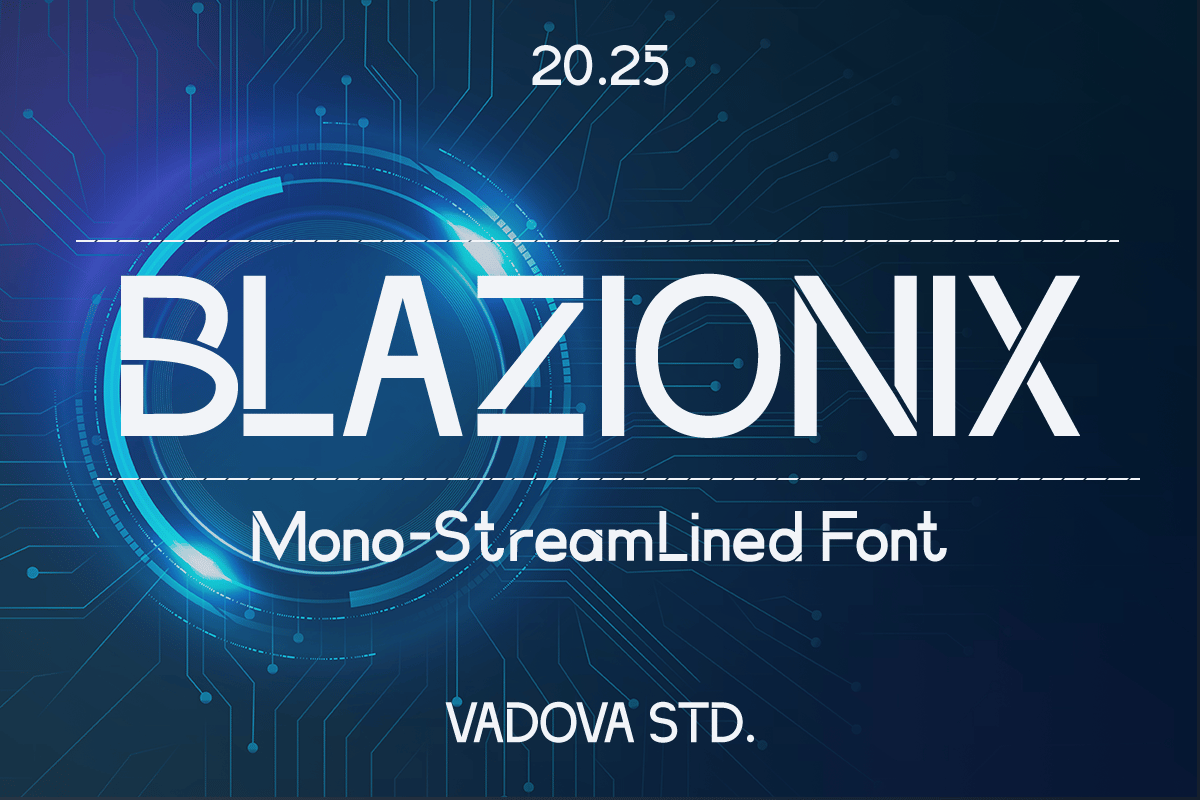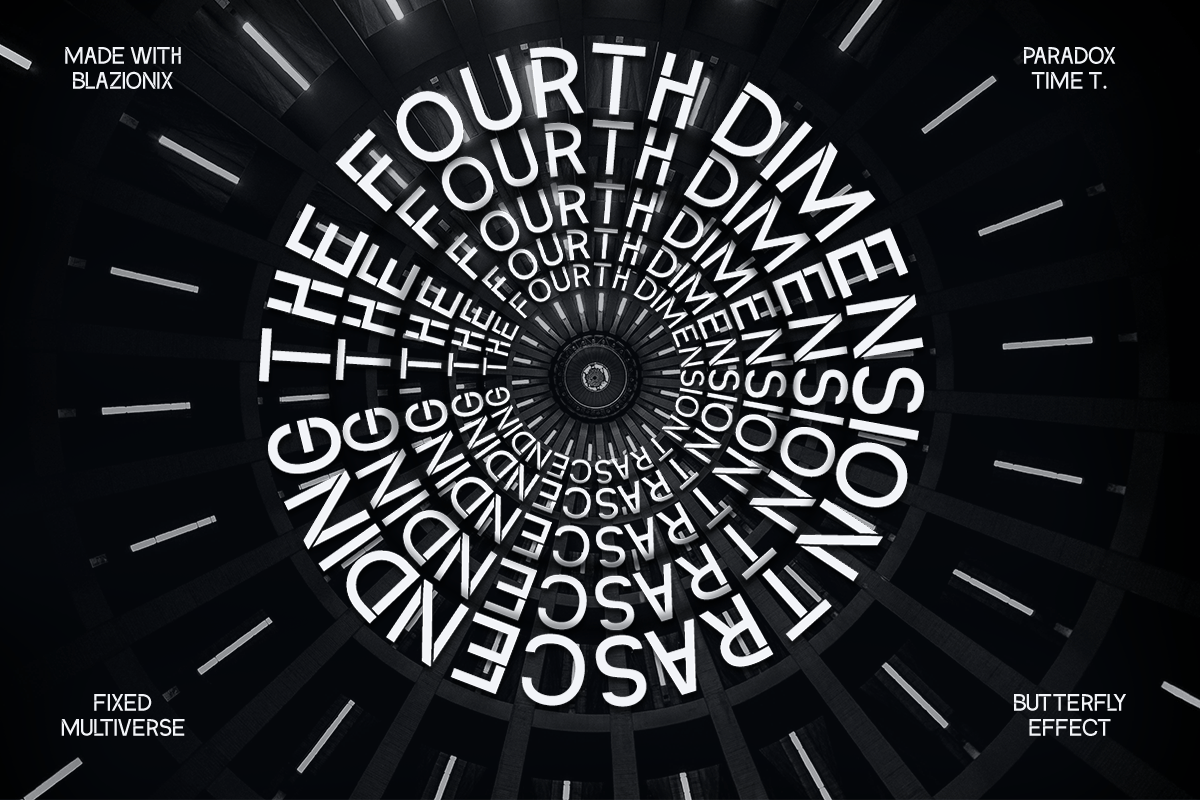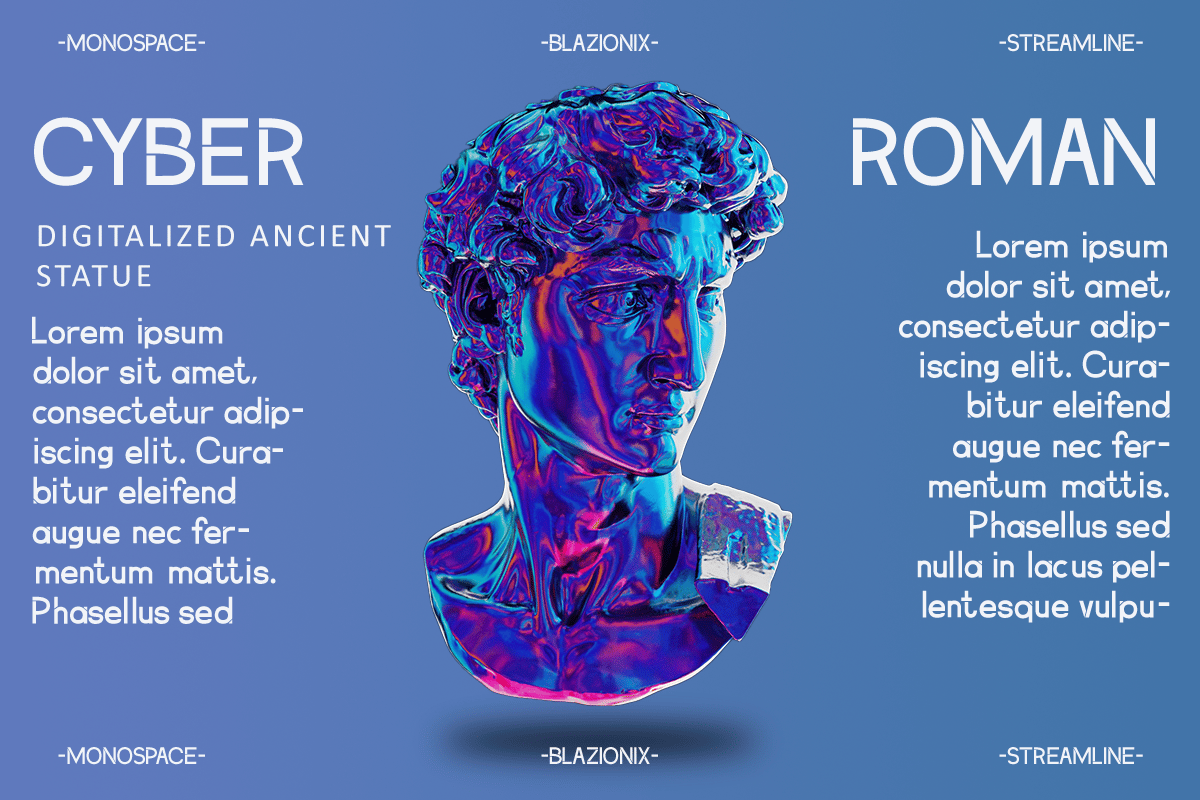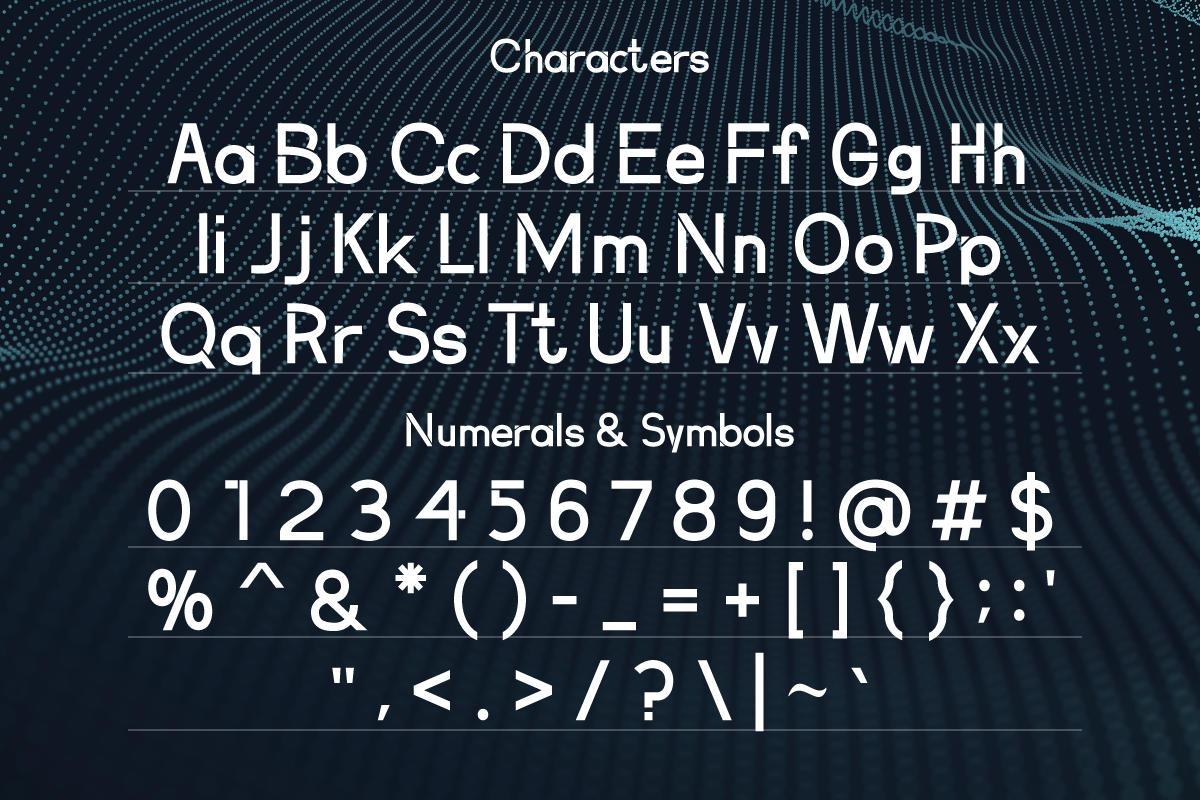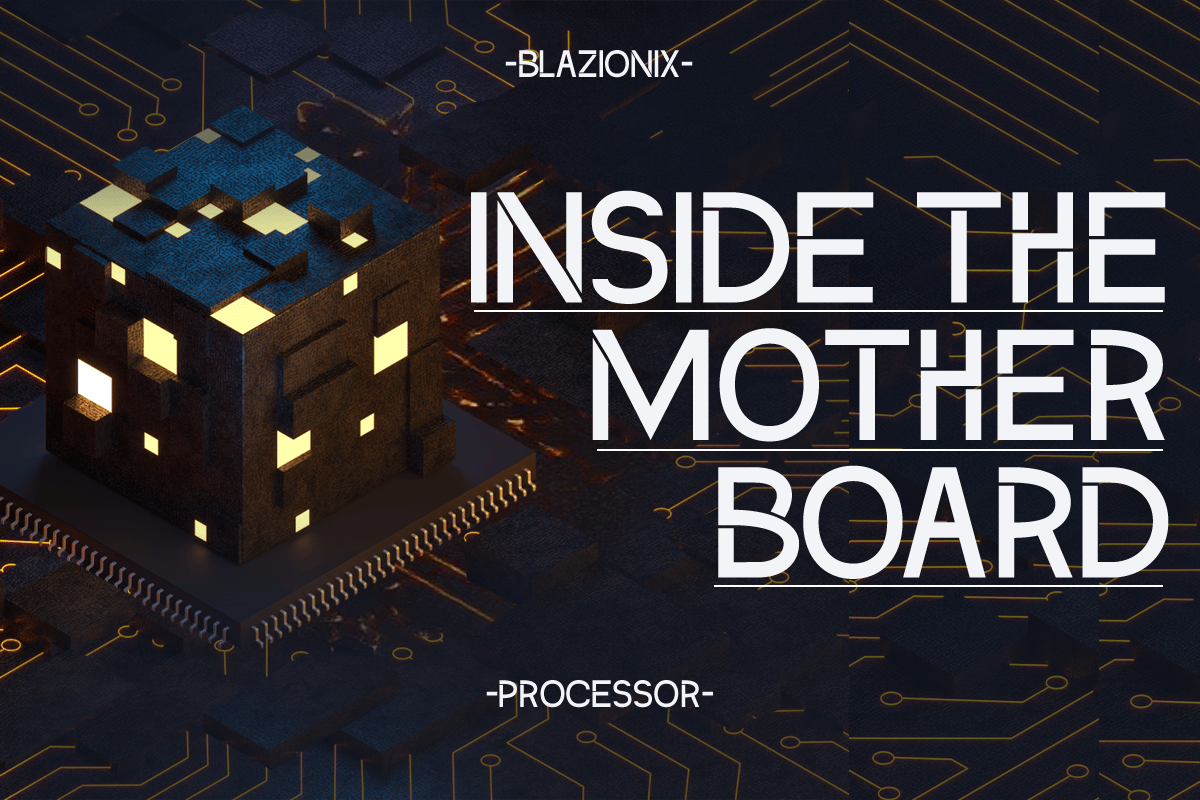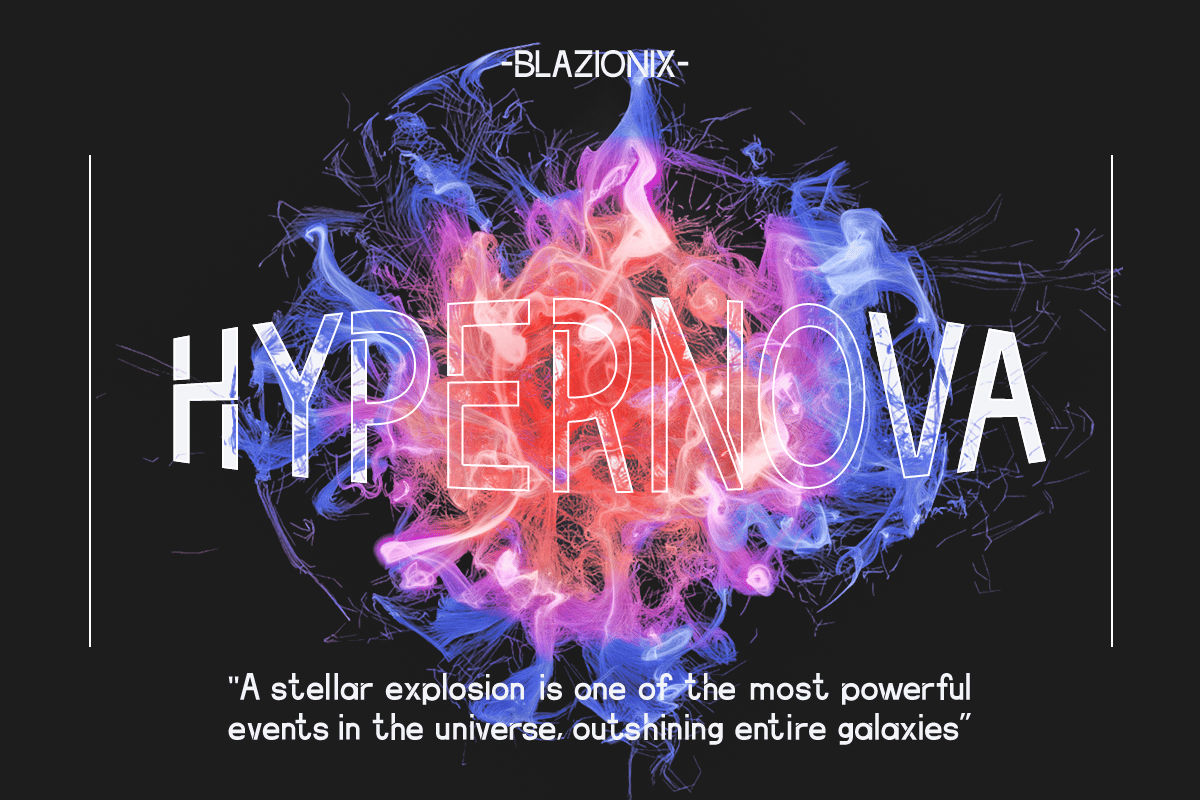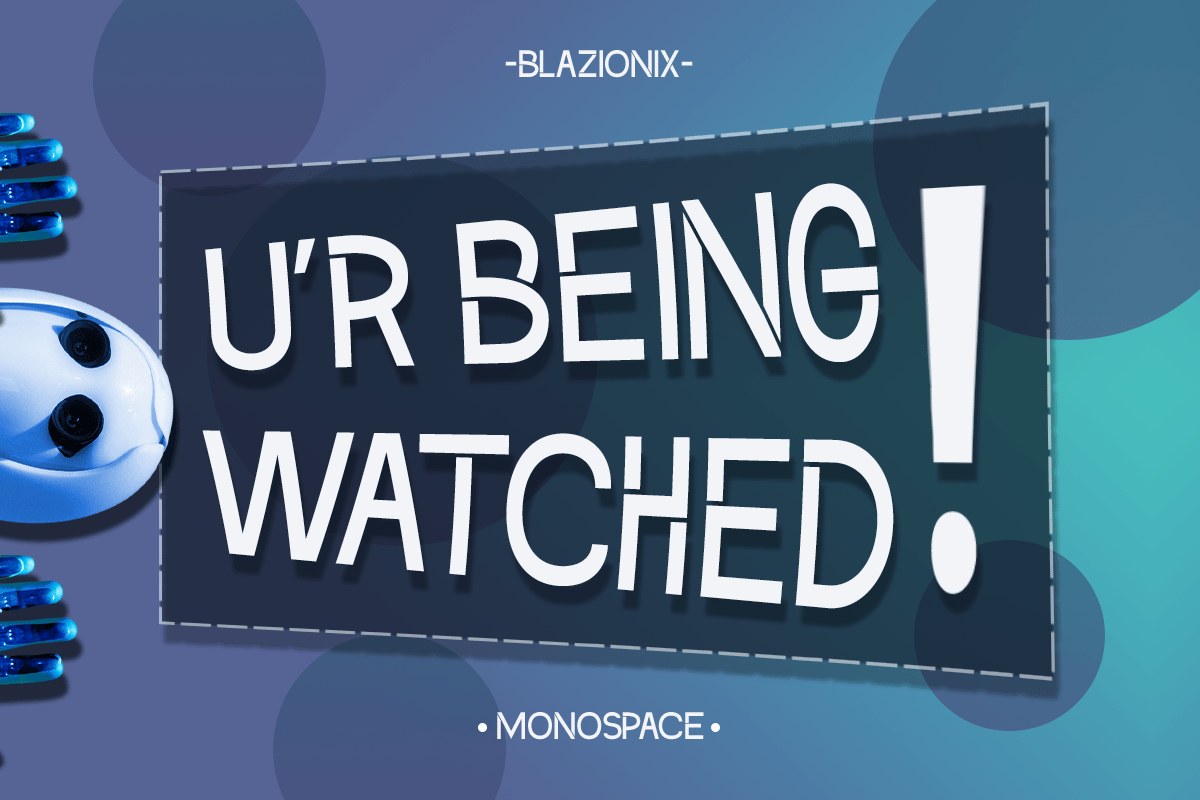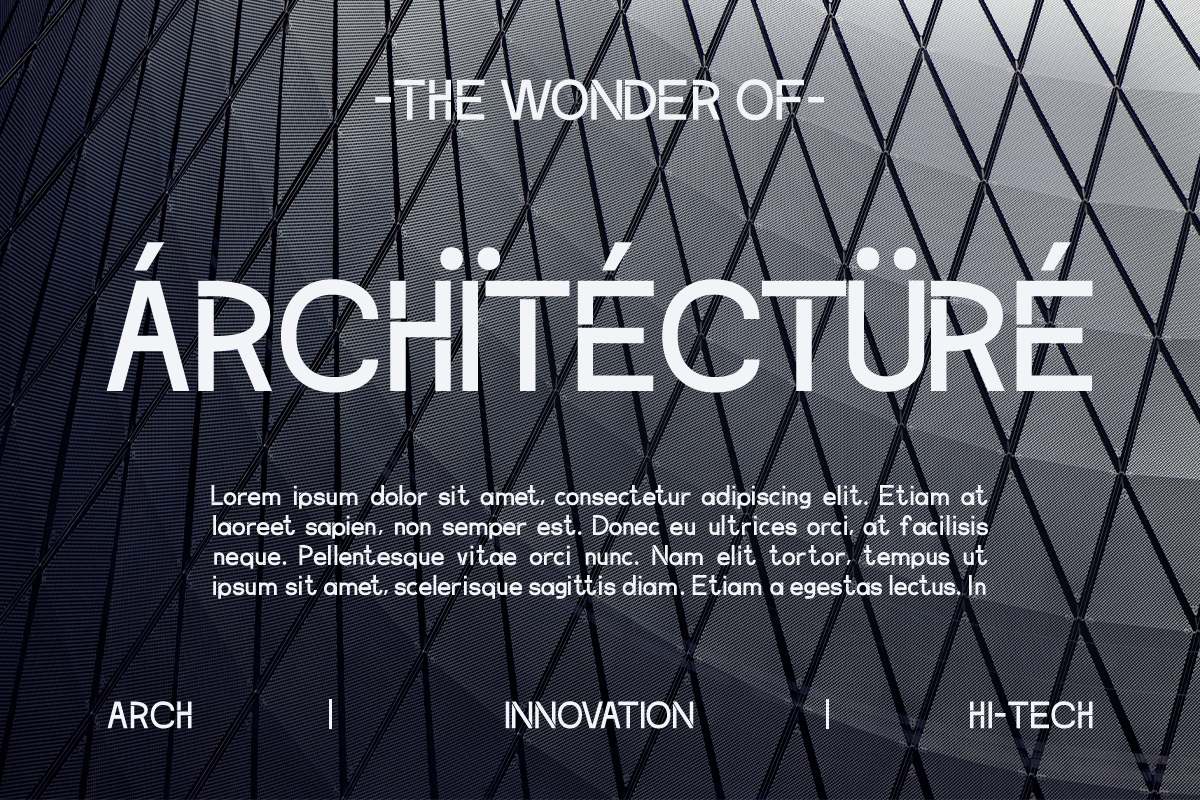
Blazionix Monospace Font
Elevate your designs with Blazionix Monospace Font, a futuristic and high-tech typeface designed for cutting-edge digital themes, sci-fi aesthetics, and technology-driven projects. Its sharp, geometric letterforms and sleek, modern structure make it ideal for cyberpunk visuals, gaming interfaces, tech branding, and digital posters. The font’s bold and dynamic presence evokes innovation and advanced technology, making it a perfect choice for projects that demand a futuristic and electrifying feel. With its precision and digital-inspired design, Blazionix seamlessly integrates into high-tech environments, bringing a sleek, cybernetic edge to any composition.